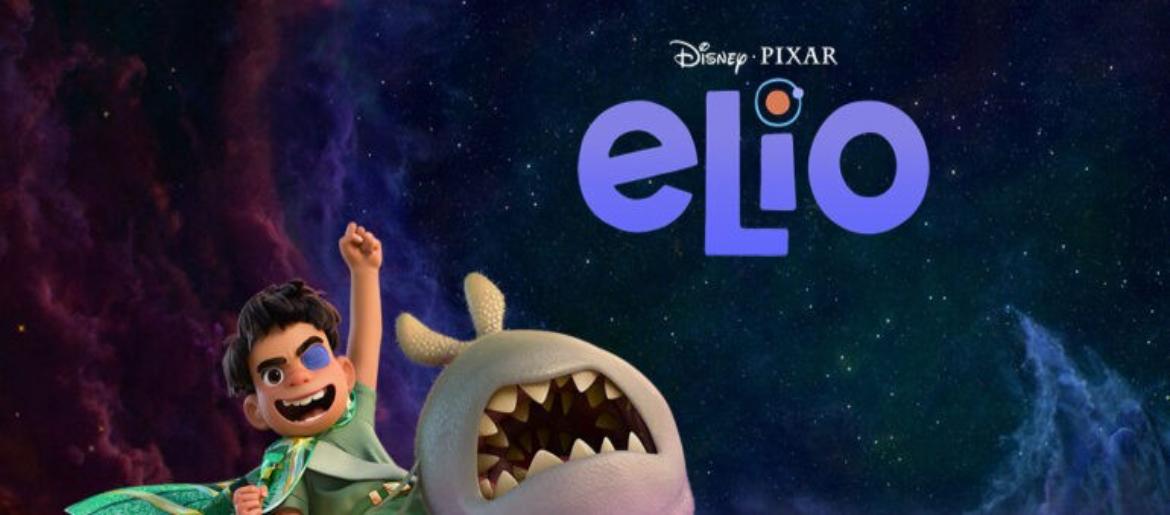
Elio Font
The Elio Font radiates that dreamy cosmic curiosity that defines Disney and Pixar’s upcoming adventure perfectly. Its playful curves and star-like spacing feel almost alive, like letters drifting through stardust on their way to another galaxy. There’s a childlike innocence in the design, but also a sense of vastness and discovery, reflecting Elio’s journey from earthly imagination to universal wonder. It’s a typeface that feels both warm and otherworldly—inviting us into a story that blends emotion, humor, and unknown worlds.